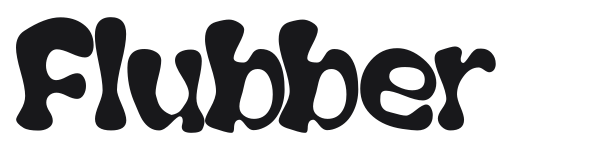
Diskopia
Diskopia is a heavy, rounded display face from NimaVisual that wears its 1970s disco influence on its sleeve. The letterforms are thick and bubbly with a funky swagger, each character looking like it could slide right onto a vintage nightclub flyer or funk album cover. Built for headlines and display use where you want bold retro energy with plenty of visual bounce.